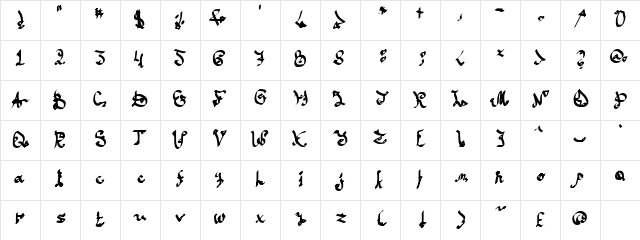
Cazzy Regular Free Font
Cazzy Regular
Design Context for Cazzy
Cazzy is a composed and adaptable typeface that performs quietly and consistently across a wide range of design contexts.